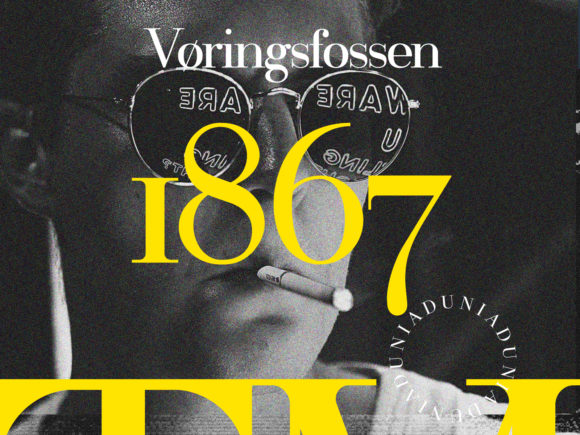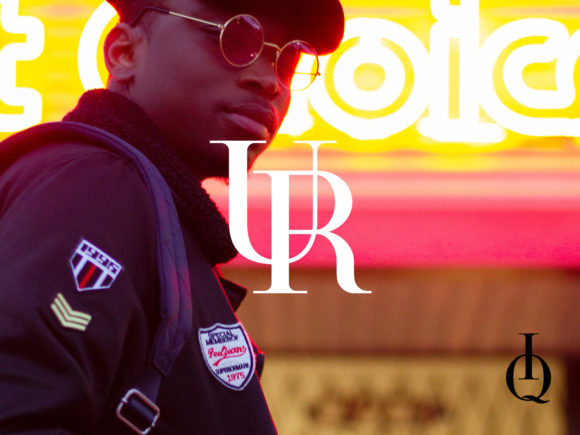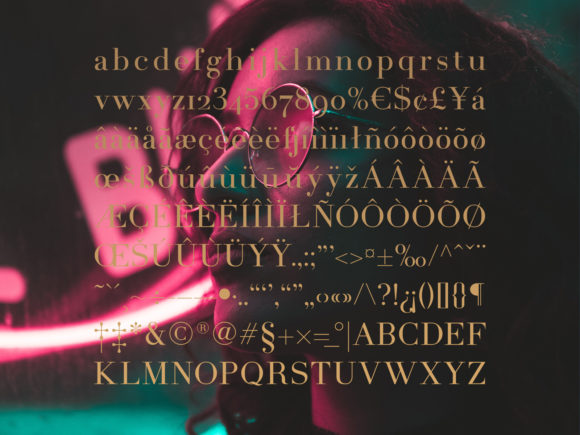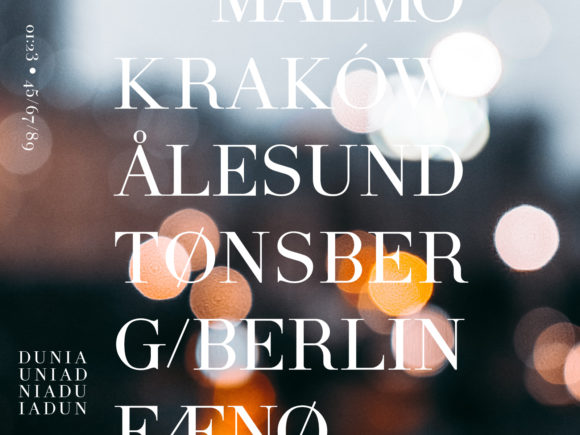
Dunia Font: Elevate Your Designs with a Touch of Elegance
In the world of typography, fonts play a crucial role in conveying the tone and personality of a design. For designers and crafters looking to add a touch of sophistication and elegance to their work, Dunia Font is an excellent choice. This fancy, contemporary serif font is designed to complement any design need perfectly, thanks to its perfectly balanced mix of smooth and sharp elements.
The Characteristics of Dunia Font
Dunia Font boasts a unique blend of classic and modern elements, making it an ideal choice for a wide range of design projects. Its serif design adds a touch of tradition and sophistication, while its contemporary twist ensures it remains fresh and modern. The font’s smooth lines and sharp edges create a beautiful contrast that adds depth and visual interest to any design.
Perfectly Balanced Mix of Smooth and Sharp
One of the standout features of Dunia Font is its perfectly balanced mix of smooth and sharp elements. This balance creates a harmonious and elegant look that is sure to elevate any design. The smooth lines and curves of the font provide a sense of fluidity and movement, while the sharp edges add a touch of precision and sophistication.
Why Choose Dunia Font?
So, why should designers and crafters choose Dunia Font for their projects? Here are just a few reasons:
- Versatility: Dunia Font is incredibly versatile and can be used for a wide range of design projects, from logos and branding to packaging and advertising.
- Elegance: The font’s elegant design makes it perfect for projects that require a touch of sophistication and refinement.
- Readability: Despite its elegant design, Dunia Font remains highly readable, even at small sizes.
- Uniqueness: With its unique blend of smooth and sharp elements, Dunia Font is sure to stand out from more traditional fonts.
How to Use Dunia Font in Your Designs
Using Dunia Font in your designs is easy. Here are a few tips to get you started:
- Pair it with other fonts: Dunia Font pairs well with a variety of other fonts, so don’t be afraid to experiment with different combinations.
- Use it for headlines and titles: The font’s elegant design makes it perfect for headlines and titles, where it can add a touch of sophistication and elegance.
- Experiment with different sizes: Dunia Font remains highly readable at a range of sizes, so don’t be afraid to experiment with different sizes to find the one that works best for your design.
| Font Name | Dunia Font |
| Author | Zisan Duniya |
In conclusion, Dunia Font is a fantastic choice for designers and crafters looking to add a touch of elegance and sophistication to their work. With its perfectly balanced mix of smooth and sharp elements, this fancy, contemporary serif font is sure to elevate any design. Whether you’re working on a logo, branding project, or packaging design, Dunia Font is an excellent choice.
Get Creative with Dunia Font